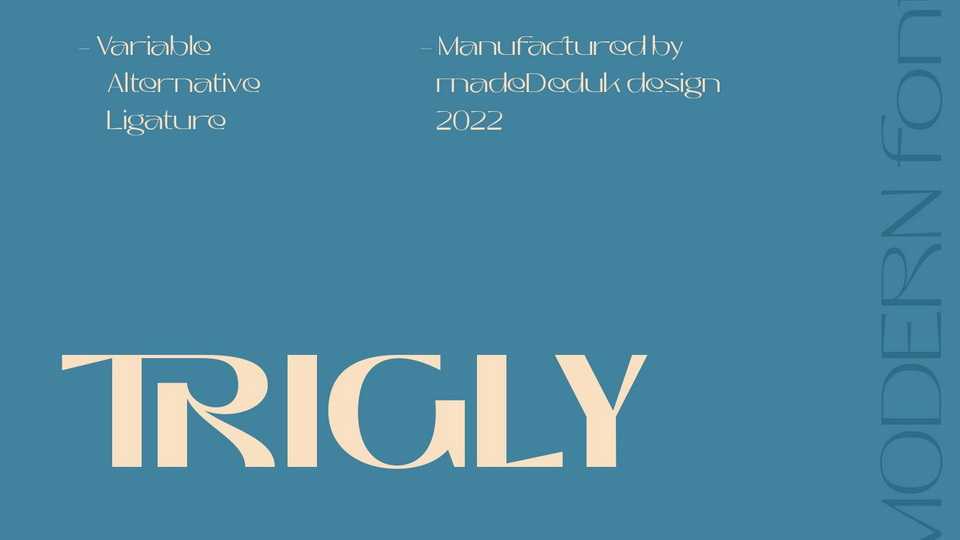
Download Trigly font, an elegant sans serif, simplistic, high-contrast sans that is at home in high-end fashion and cultural environments. Use Trigly font for any branding, product packaging, invitation, quotes, t-shirt, label, poster, logo etc.
Designer: TypeClassHeroes